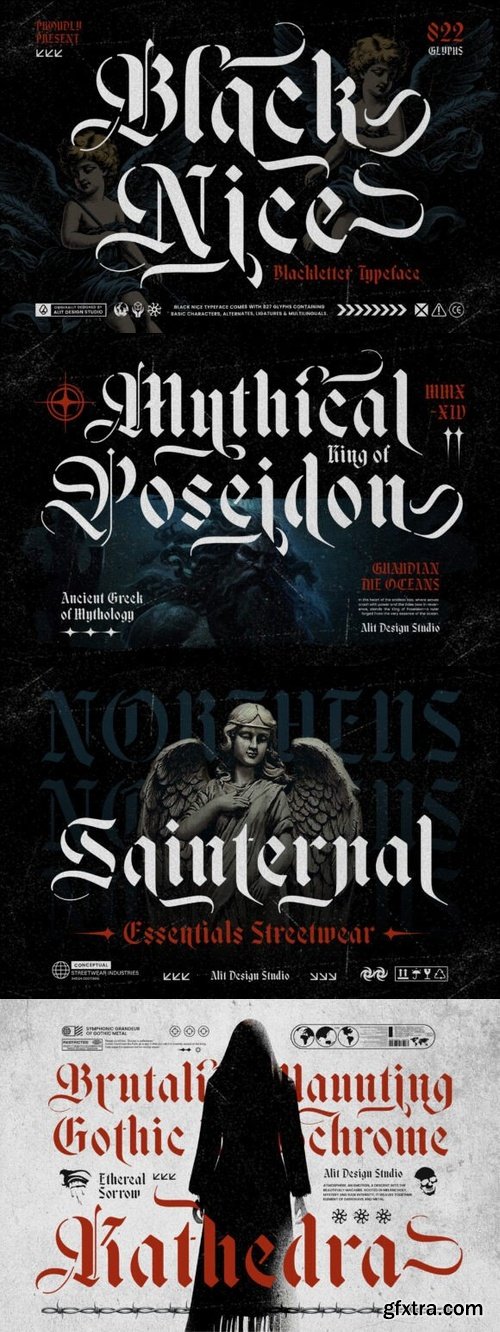
Black Nice Font
- Black Nice Typeface is a striking blend of blackletter elegance and stencil precision, designed to give your typography an unmistakable presence. Whether you’re working on branding, apparel, posters, tattoos, packaging, or editorial projects, this typeface offers the perfect balance of vintage gothic style and contemporary stencil aesthetics.
- Designed for Impact & Versatility
- With its stencil-inspired cutouts, Black Nice Typeface maintains the intricate beauty of traditional blackletter forms while ensuring optimal readability. Every curve and gap is meticulously calculated, ensuring the structural integrity of each letter remains intact—making it functional for both print and digital media.